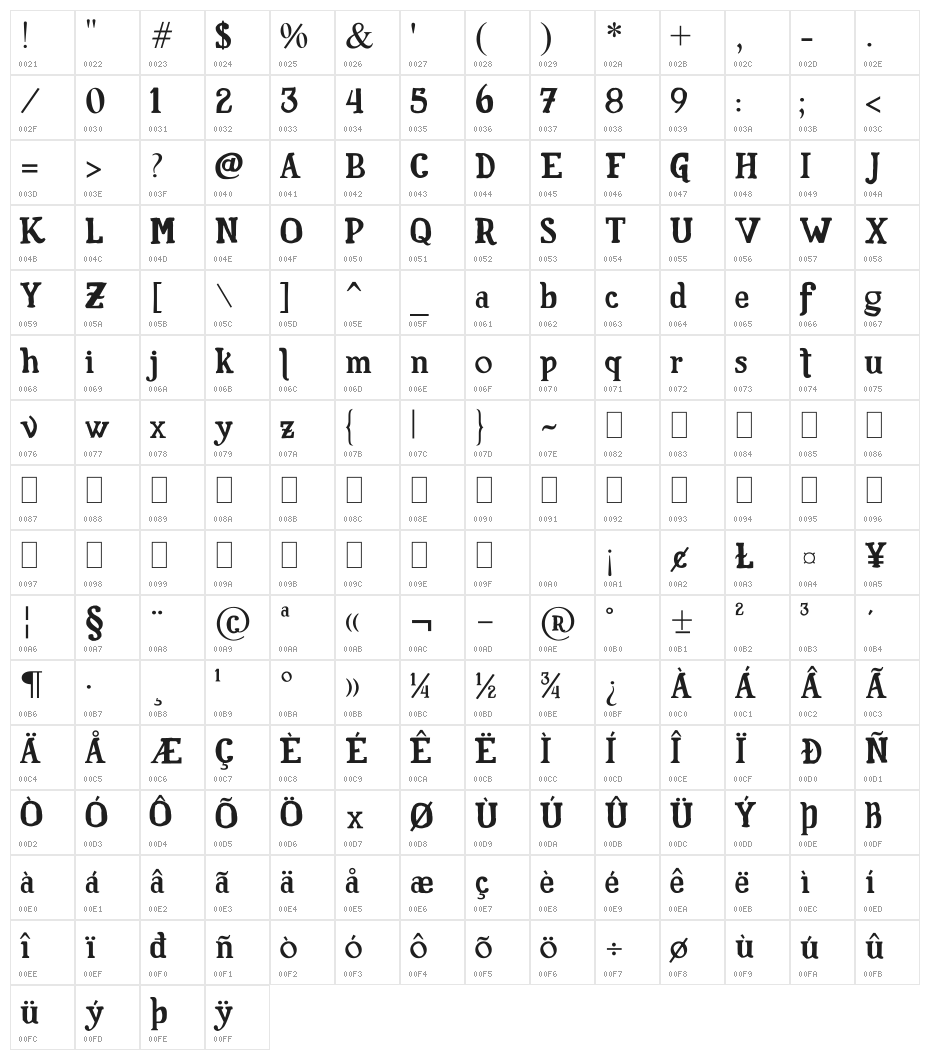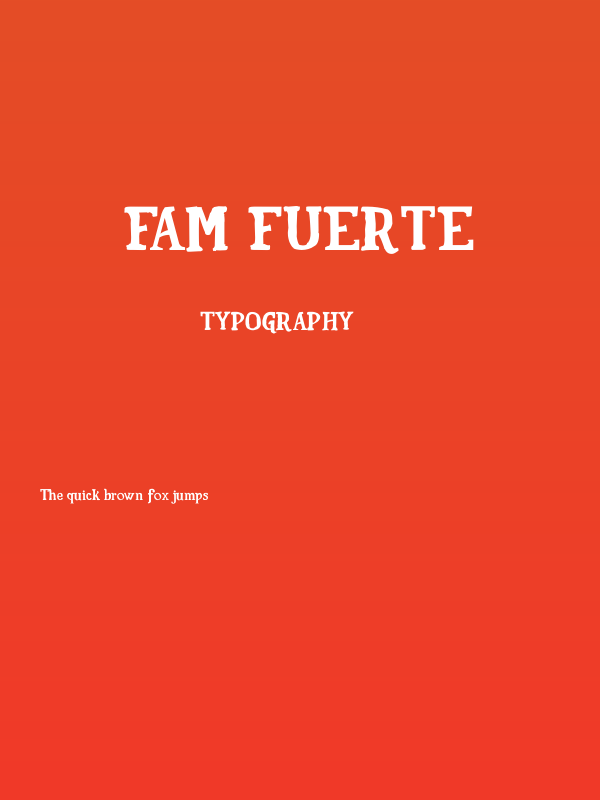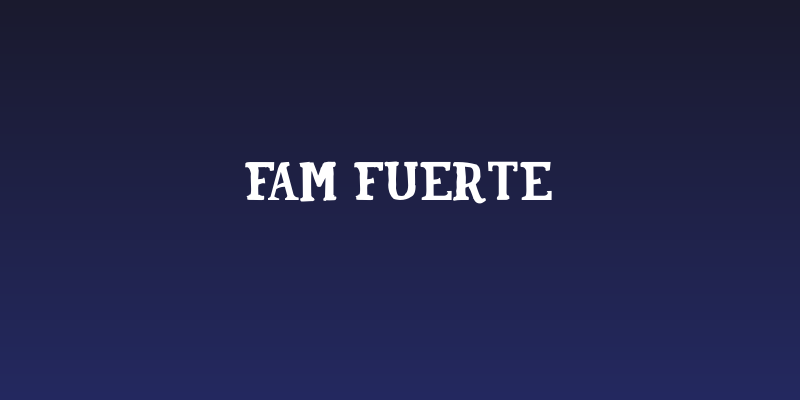
Fam Fuerte Font
Fam Fuerte Description
This font features a bold and robust design with a strong presence, characterized by thick strokes and a slightly condensed appearance. The serifs are prominent, adding a touch of classic elegance while maintaining a modern edge. The uppercase letters are particularly striking, with a commanding presence that makes them ideal for headlines or titles. The lowercase letters are equally bold, with a consistent weight that ensures readability. Numbers and special characters are designed to match the overall aesthetic, providing a cohesive look across all text elements. The font's unique style makes it suitable for a variety of design projects where a strong, impactful typeface is needed.